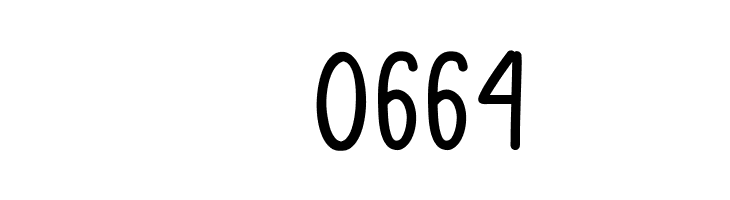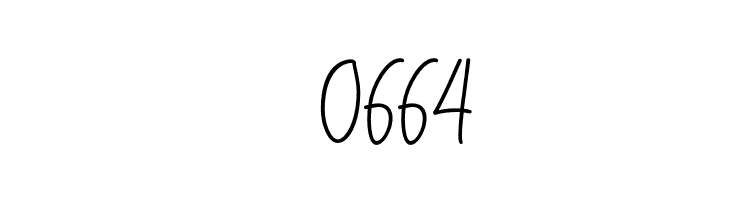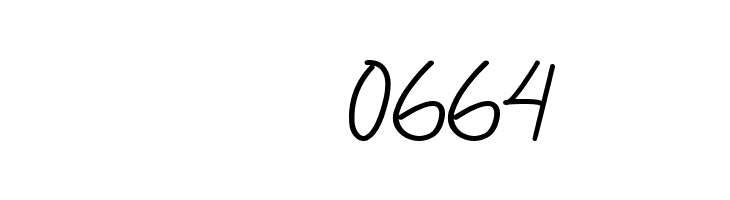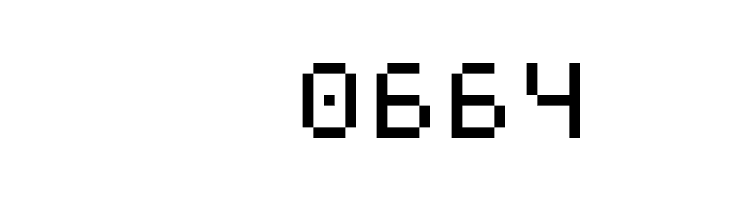
A delicate and flowing script font with elegant cursive letterforms.
A modern, cursive font with a handwritten style and smooth, connected characters.
A bold, distressed font with a grunge, stamped appearance.
An artistic and whimsical font with characters transformed into unique faces and abstract figures.
An abstract and dynamic font with irregular, jagged strokes and fluid curves.
A playful, casual handwritten font with fluid strokes and a friendly appearance.
A bold, geometric font with calligraphic influences, perfect for creative and modern designs.
A bold, geometric font with sharp edges and a modern-traditional blend.
A bold, italicized font with dynamic slant and angular design.
A dynamic italic font with sharp serifs and a modern, artistic style.
A bold, playful font with a nautical theme and rounded, flowing characters.
A bold, angular font with a modern geometric style.
A cursive, handwritten font with elegant, flowing strokes and medium contrast.
An ornate, decorative font with intricate detailing and a vintage flair.
A flowing, elegant handwritten font with elongated, smooth strokes.
A graceful script font with flowing, cursive letters and elegant swashes.
An elegant script font with ornate flourishes and high contrast strokes.
A modern, decorative font with elongated, narrow letterforms and artistic flair.
A casual, handwritten font with a dynamic and flowing style.
A bold, textured font with a distressed, stencil-like appearance.
Elegant swashes with smooth, flowing strokes for decorative use.
A bold, impactful slab serif font with a vintage yet modern appeal.
A clean, readable font with consistent stroke thickness and balanced spacing.
A clean, modern sans-serif font with excellent legibility.
A bold, modern sans-serif font with clean lines and balanced proportions.
A bold, italicized sans-serif font with a modern and dynamic style.
A modern, italic sans-serif font with clean lines and balanced proportions.
A clean, modern sans-serif font with excellent readability and uniform stroke width.
A pixelated, geometric font with a retro digital aesthetic.